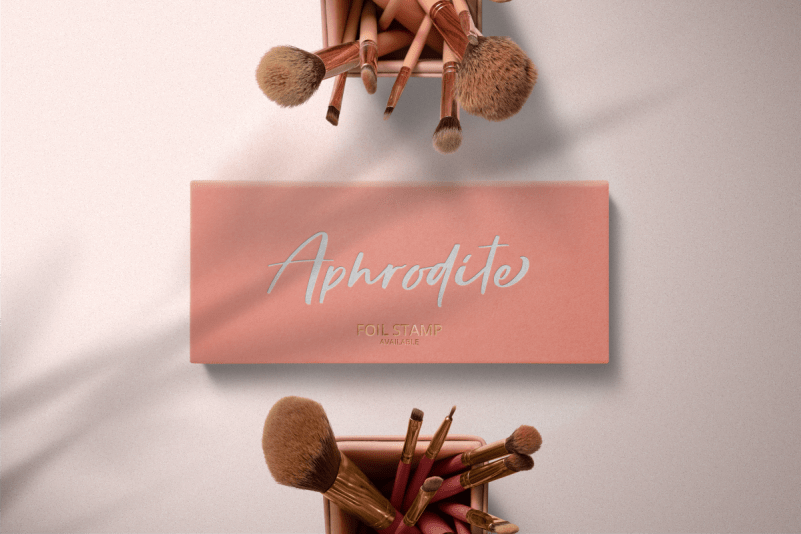
Mustica Handwritten Script Font
Mustica Handwritten Script Font is a beautiful script font that looks thick and thin. Beautiful fonts with natural hand scratches with brush. This signature font is perfect for cover, watermarks, branding, name, business cards, product, logos, etc.